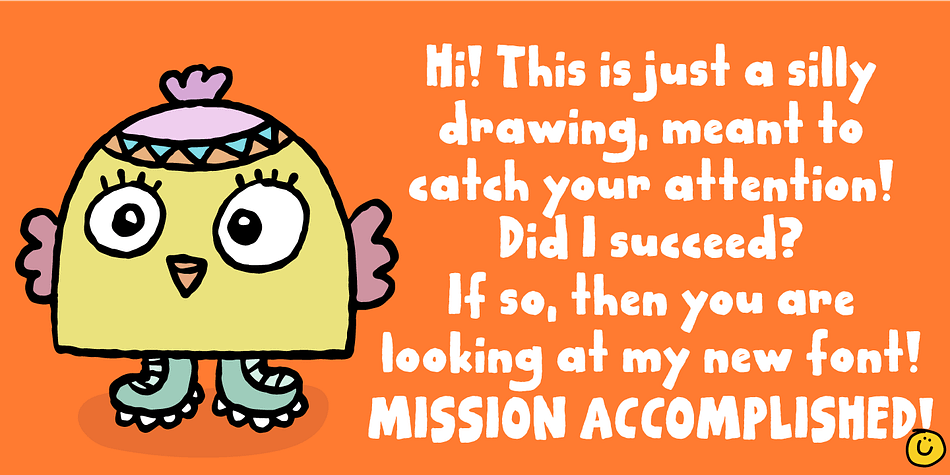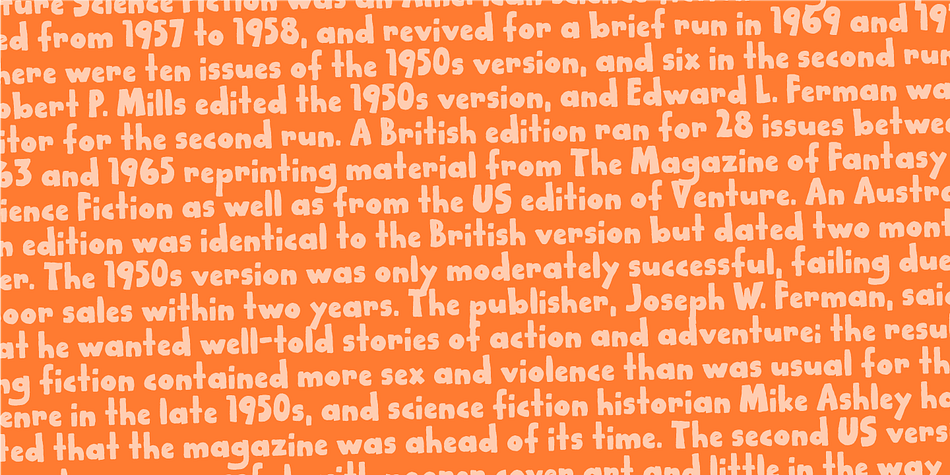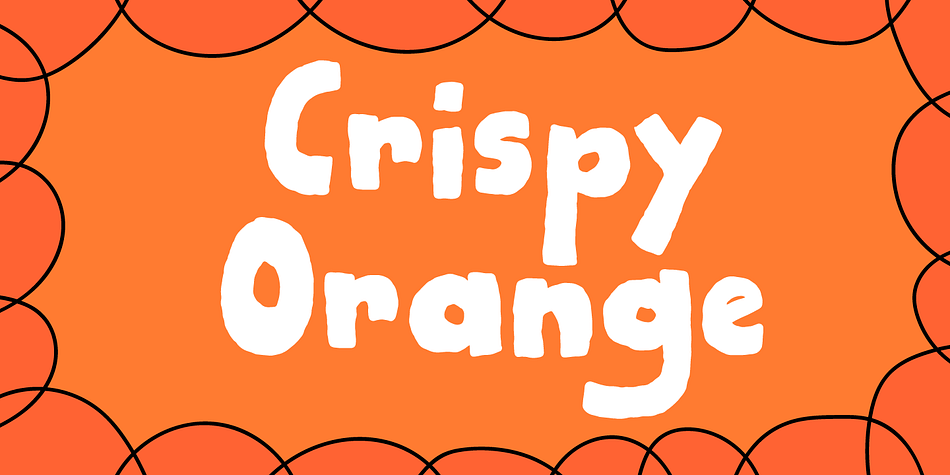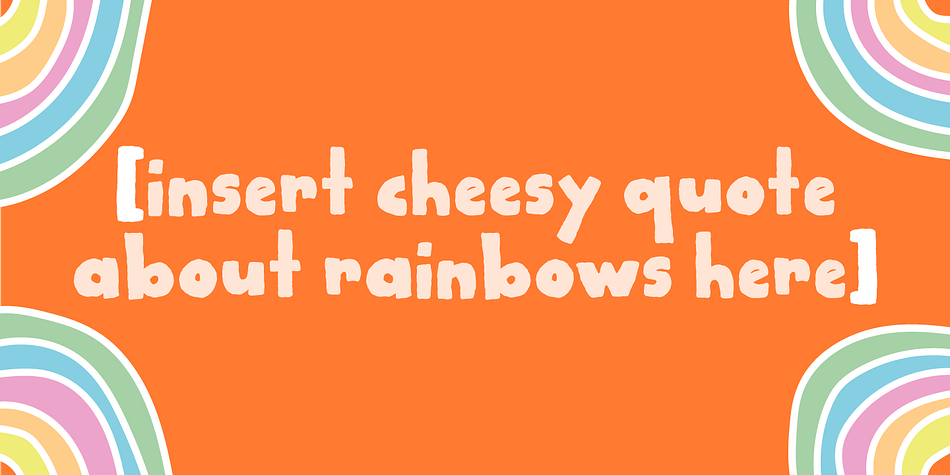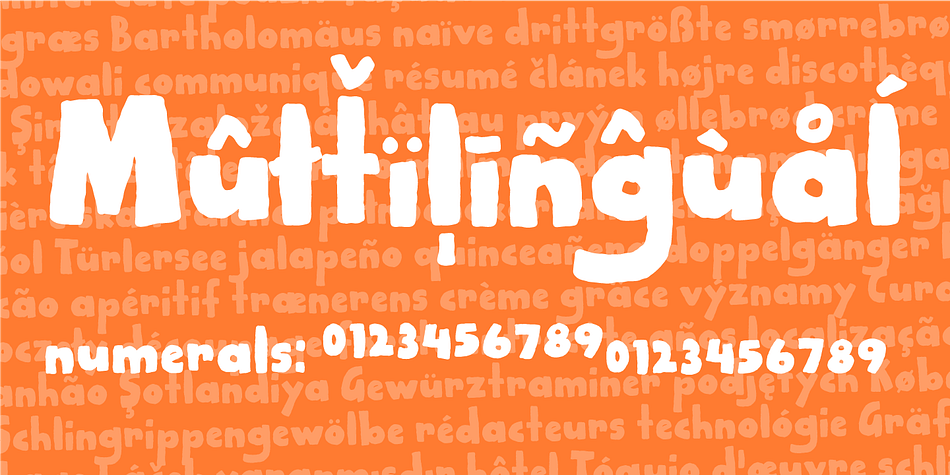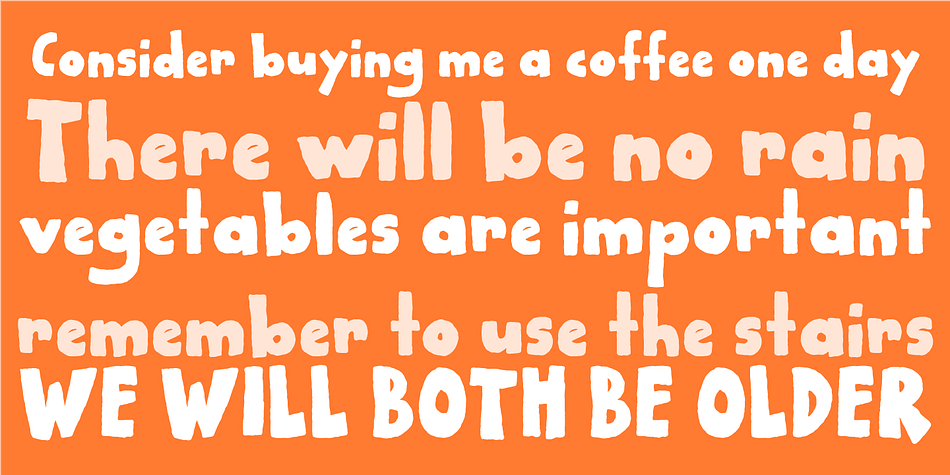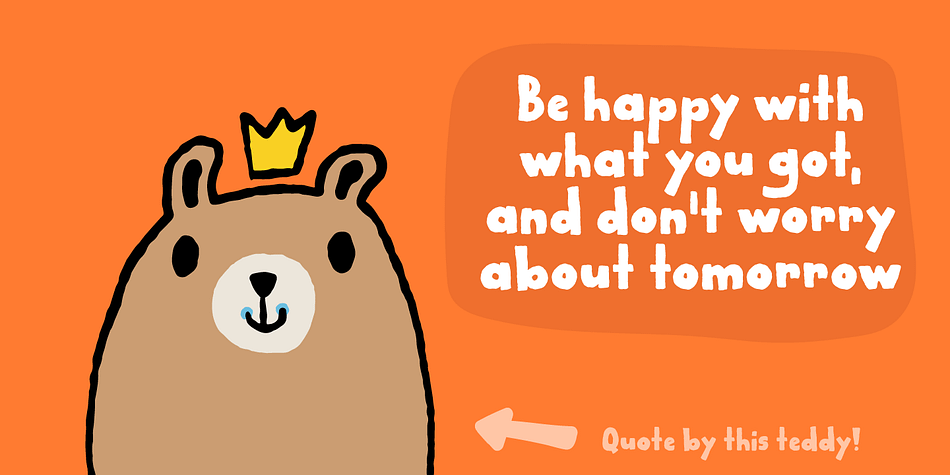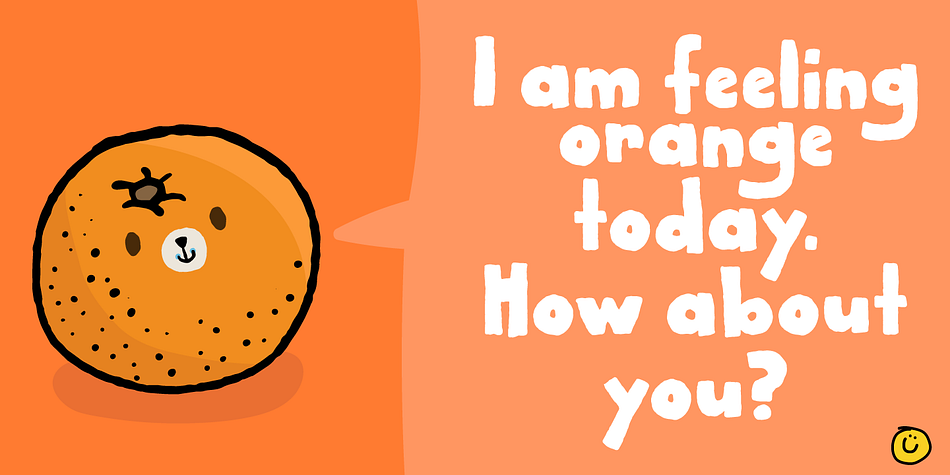
Crispy Orange
Designed by Jakob Fischer, Crispy Orange is a hand drawn and kids font family. This typeface has two styles and was published by Bogstav.
The other day, I ate an orange - and I absolutely love oranges! This one was perfect - juicy, sweet and crispy in a very delicate way.
This font is also juicy, sweet and crispy and on top of that, organic and handmade!